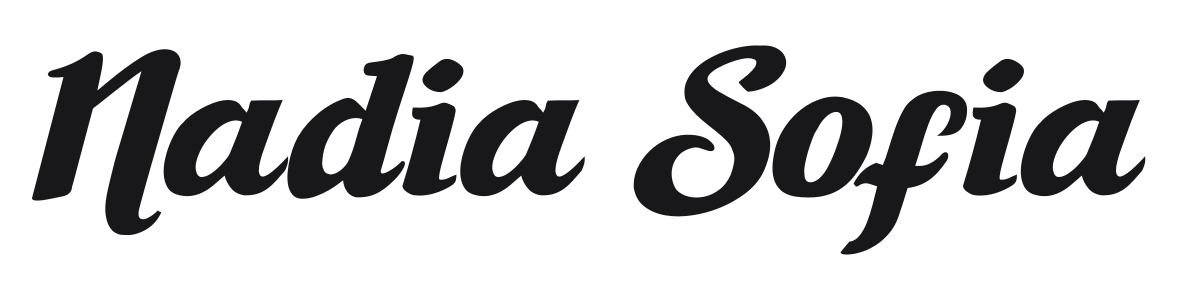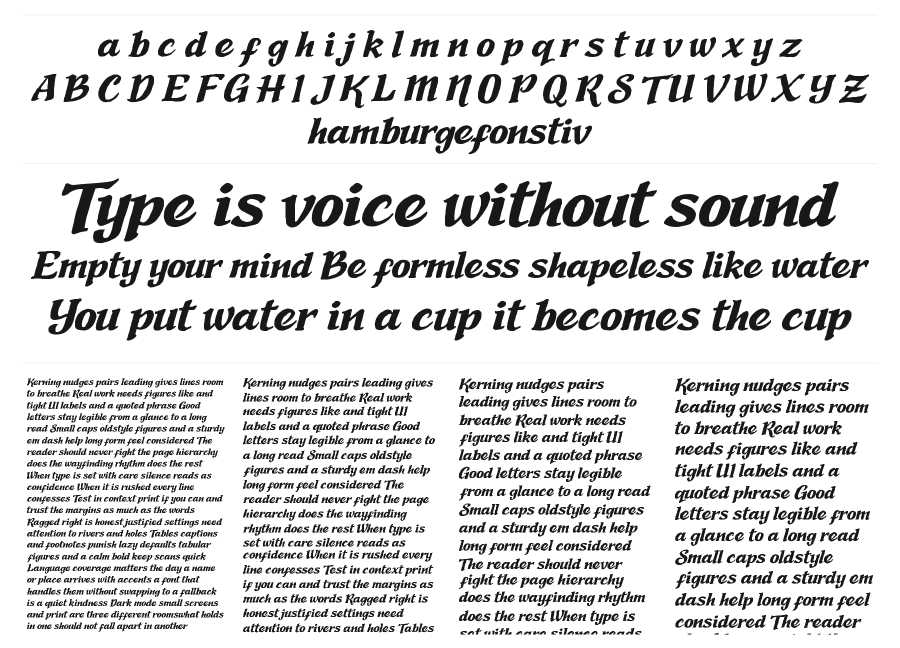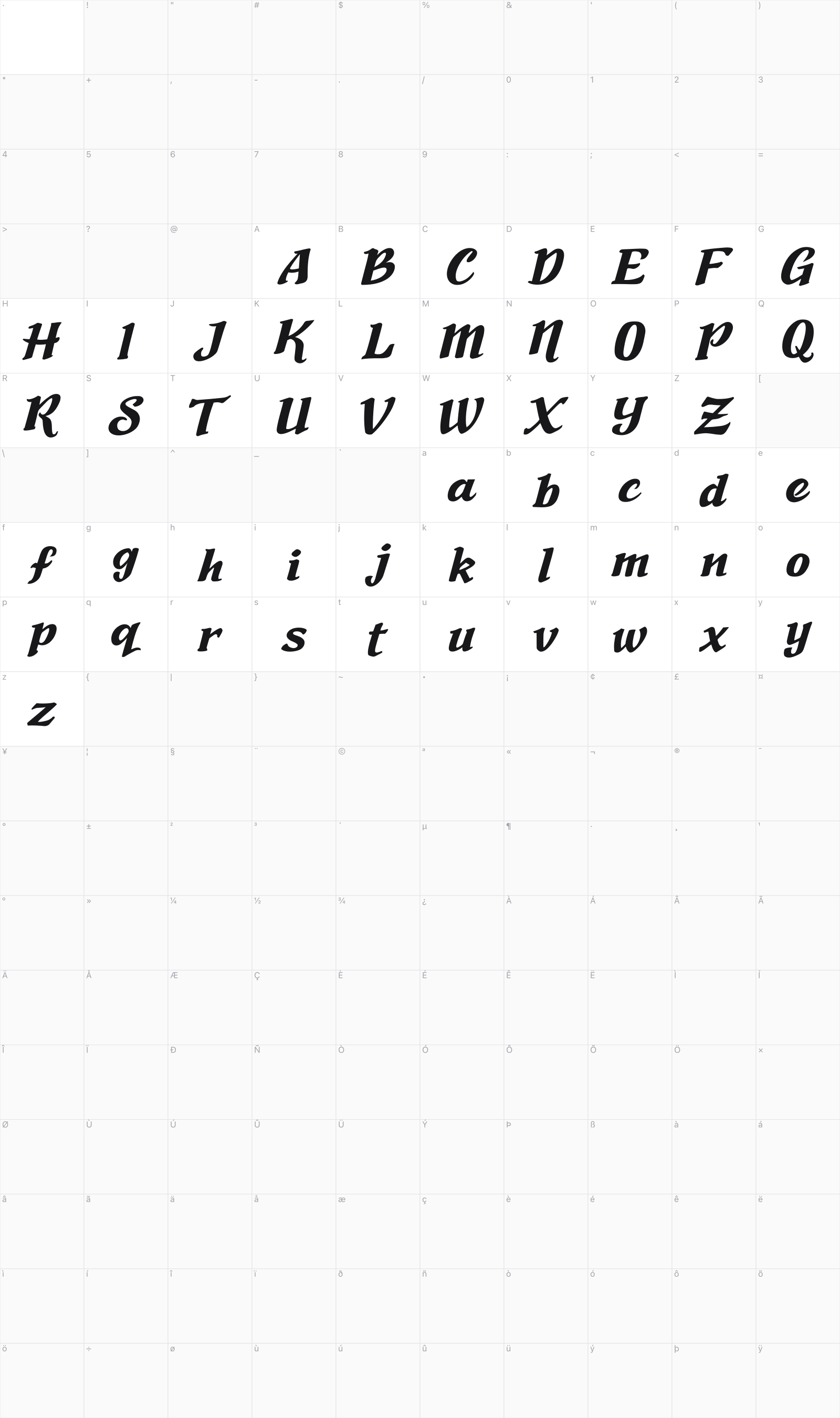
Nadia Sofia
Nadia Sofia is a bold brush script with sweeping thick-to-thin strokes and a confident italic lean. The ink-brush construction gives it an authentic handcrafted feel without feeling rough or uneven. It hits hard at large sizes and carries personality well in logo and packaging work.